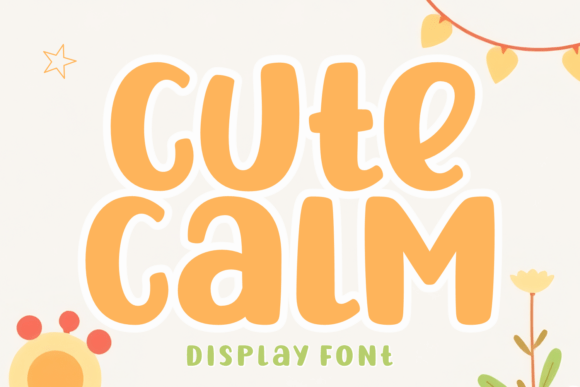
Cute Calm: A Bold, Whimsical Display Font
In the crowded landscape of digital design, finding a typeface that feels both authentic and effortlessly charming is a rare achievement. Cute Calm emerges as a standout solution for those seeking to inject personality into their visual communication. It is not merely a collection of characters; it is a bold and whimsical display font designed to captivate with a unique, handcrafted spirit. Defined by its rounded, ultra-smooth texture, this typeface bridges the gap between vintage nostalgia and modern playfulness, offering a carefree vibe that resonates across various creative mediums.
Understanding the Essence of Cute Calm
At its core, Cute Calm is engineered to evoke warmth and approachability. Unlike rigid, geometric sans-serifs or overly ornate scripts, this font occupies a sweet spot where readability meets artistic flair. Its strokes are soft yet confident, mimicking the fluidity of a marker on paper while maintaining the precision required for professional output. This specific aesthetic makes it an excellent choice for projects that need to feel human and inviting rather than corporate and distant.
The versatility of Cute Calm extends far beyond simple decoration. While it shines in high-impact areas like magazine covers and t-shirt graphics, its structural integrity allows it to function effectively in more complex layouts. The added multilingual support further cements its status as an all-encompassing design tool, ensuring that creators can maintain a consistent brand voice regardless of their audience's language. Whether you are aiming for a clean, hand-drawn look or a fancy, playful vibe, this font adapts to your vision without losing its inherent charm.
Why Different Audiences Connect with This Typeface
The appeal of a font often depends heavily on the user's specific goals and the context of their work. For some, typography is about strict adherence to grid systems; for others, it is about emotional connection. Cute Calm serves these divergent needs by offering a balance of structure and whimsy that appeals to a wide demographic ranging from hobbyists to seasoned professionals.
For Beginners and Hobbyists: A Gateway to Creativity
For those just starting their journey in graphic design, the learning curve can be steep. Choosing the right tools is crucial to building confidence. Cute Calm is particularly forgiving and inspiring for beginners because its character is so distinct. Even a novice designer can create a striking logo or a beautiful greeting card simply by applying this font to text. It removes the pressure of needing advanced kerning skills to make a design look "finished." The rounded edges naturally soften any layout imperfections, allowing new creators to focus on color theory and composition rather than struggling with harsh typographic details.
Hobbyists creating invitations for weddings, baby showers, or birthday parties will find this font invaluable. It instantly elevates a standard template into something that feels personally crafted. The vintage feel adds a layer of sophistication that suggests effort and thoughtfulness, which is exactly what personal events require.
For Professionals and Entrepreneurs: Branding and Identity
Marketers, small business owners, and branding agencies face a different set of challenges: differentiation. In a saturated market, standing out requires a visual identity that stops the scroll. Cute Calm offers a unique texture that helps brands break through the noise. For entrepreneurs launching lifestyle products, artisanal goods, or children's services, this font communicates trustworthiness and fun simultaneously.
Professionals evaluating this typeface will likely prioritize flexibility and commercial viability. Does it work on packaging? Yes. Is it legible at small sizes on product labels? Often, yes, provided it is used for headlines or short phrases. The ability to incorporate Cute Calm into branding ensures that logos and eye-catching apparel designs stand out in the crowd. It signals to consumers that a brand is modern yet grounded in authentic values, a powerful combination for building customer loyalty.
For Educators and Publishers: Engagement and Layout
Educators and publishers often struggle to make content engaging without sacrificing clarity. Textbooks and educational materials can sometimes feel dry, but Cute Calm offers a way to introduce visual breaks that capture attention. Used selectively for chapter headings, pull quotes, or activity instructions, it can transform a mundane worksheet into an exciting learning tool.
Publishers looking to spruce up book layouts or magazine features will appreciate the font's ability to enhance anything from artistically crafted quotes to section dividers. It brings a sense of narrative flow, guiding the reader's eye with a gentle rhythm. The multilingual support is also a significant asset here, allowing international publications to maintain a cohesive aesthetic across different editions without needing to switch typefaces.
Evaluating Practical Priorities and Use Cases
When deciding if Cute Calm is the right fit for a project, users should consider several key priorities: ease of use, presentation quality, and long-term usefulness. Unlike trend-driven fonts that may feel dated in a year, the vintage-inspired nature of this typeface gives it a timeless quality. It taps into a nostalgic aesthetic that cycles back into fashion regularly, ensuring that designs created today remain relevant tomorrow.
- Ease of Use: The font integrates seamlessly into major design software, requiring no special technical knowledge to implement. Its smooth rendering ensures crisp output on both screen and print.
- Presentation Quality: The ultra-smooth texture provides a premium feel, essential for high-end packaging and marketing materials where tactile perception matters.
- Creativity and Flexibility: From invitation labels to large-scale banners, the font scales well, maintaining its character whether used in a 10-point caption or a 100-point headline.
- Commercial Value: For freelancers and agencies, having a versatile, high-quality font like this in their toolkit increases the speed of production and the perceived value of their deliverables.
Determining If Cute Calm Matches Your Goals
Not every project calls for a whimsical display font. It is important to assess whether your specific goals align with the characteristics of Cute Calm. If your project demands extreme minimalism, severe corporate authority, or dense body text reading, this font might not be the primary choice. However, if your objective is to evoke emotion, highlight key messages, or add a touch of personality to a brand, it is an exceptional resource.
Consider your audience. Are they looking for fun, creativity, and a human touch? Or do they expect rigid formality? For businesses targeting parents, young adults, or creative communities, Cute Calm speaks directly to their sensibilities. For educators trying to make learning enjoyable, it serves as a bridge to student engagement. For designers seeking to impress clients with striking logos, it provides the unique edge needed to win over the competition.
Ultimately, Cute Calm raises the bar for creative typography by blending authenticity, uniqueness, and nostalgia into a single, cohesive package. It empowers users—from the weekend crafter to the full-time creative director—to express ideas with clarity and charm. By incorporating this font into your workflow, you unlock the potential to create designs that don't just communicate information but also tell a story and leave a lasting impression.